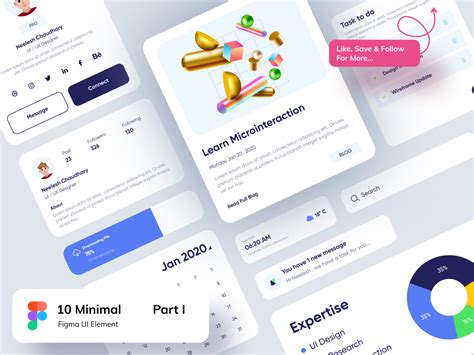
Figma Minimalist Fonts: A Designer's Guide
Figma Minimalist Fonts: A Designer’s Guide
Hey guys! Today, we’re diving deep into the world of minimalist fonts and how you can totally rock them in Figma . You know, those super clean, uncluttered typefaces that just make your designs pop without screaming for attention? That’s what we’re talking about. Minimalist design isn’t just a trend; it’s a philosophy, and fonts are its backbone. Choosing the right font can literally make or break your user interface (UI) or user experience (UX) design. It’s all about readability, aesthetic appeal, and conveying the right message with subtlety. In this guide, we’ll explore why minimalist fonts are so darn effective, how to pick the perfect ones for your next Figma project, and give you some awesome recommendations to get you started. We’ll cover everything from the classics to some hidden gems that will elevate your design game. So grab your favorite beverage, settle in, and let’s get these minimalist vibes flowing!
Why Minimalist Fonts Rule in Figma
Alright, let’s get real for a second. Why are minimalist fonts such a big deal, especially when you’re crafting amazing things in Figma ? It’s simple, really. In a world cluttered with information and visual noise, minimalism offers a breath of fresh air. It’s about stripping away the unnecessary to reveal the essential. When applied to typography, this means focusing on clarity, legibility, and a clean aesthetic. Minimalist fonts are typically characterized by their simple forms, balanced proportions, and lack of overly decorative elements. Think clean lines, open counters, and straightforward letterforms. These qualities make them incredibly versatile and user-friendly. For starters, readability is paramount in UI/UX design. Users need to be able to scan text quickly and easily, whether they’re reading a paragraph, a button label, or a heading. Minimalist fonts excel here because their unadorned nature minimizes visual distractions, allowing the content to shine. This is crucial in Figma , where you’re often designing interfaces that need to be intuitive and accessible. Furthermore, minimalist fonts lend an air of sophistication and modernity to your designs. They convey a sense of professionalism and attention to detail, which can significantly boost the perceived value of your brand or product. They play well with ample white space, another cornerstone of minimalist design, creating a balanced and harmonious visual hierarchy. Imagine a sleek app interface or a clean, professional website – the typography is often the silent hero, guiding the user’s eye and enhancing their overall experience. Figma itself, with its focus on clean design and collaborative workflows, is the perfect playground for exploring the power of minimalist typography. The tool allows you to easily experiment with different font pairings and weights, ensuring your chosen minimalist fonts look absolutely stunning in your mockups. So, in a nutshell, minimalist fonts are your secret weapon for creating designs that are not only beautiful but also highly functional and impactful. They help you communicate your message clearly and effectively, all while looking effortlessly stylish. It’s a win-win, guys!
Choosing the Perfect Minimalist Font for Your Figma Project
So, you’re convinced that minimalist fonts are the way to go for your next Figma masterpiece. Awesome! But now comes the slightly tricky part: actually picking the right one. It’s not just about grabbing the first clean-looking font you see. We need to think strategically. First off, consider the purpose and tone of your design. Are you building a super-modern tech startup’s website? Or maybe a chic, minimalist fashion blog? Or perhaps a functional app for productivity? The font you choose should align with the overall message you’re trying to convey. A serious, professional project might call for a more structured sans-serif, while a creative endeavor might allow for something with a touch more personality, still within the minimalist spectrum, of course. Readability is king, remember? This is non-negotiable, especially for body text. Test your chosen font at various sizes in Figma . Can you easily read paragraphs at 16px? How about small captions at 12px? Look for fonts with clear letterforms, good x-height (the height of lowercase letters like ‘x’), and adequate spacing between letters (kerning) and lines (leading). OpenType features like ligatures can sometimes enhance readability, but keep it simple for true minimalism. Font pairing is another crucial element. Rarely will you use just one font. You’ll likely need a headline font and a body text font. The key is to create contrast while maintaining harmony. A common and effective strategy is to pair a serif font with a sans-serif font. For a minimalist aesthetic, you might choose a clean, geometric sans-serif for headings and a highly legible serif with simple details for body copy, or vice-versa. Alternatively, you can use different weights or styles of the same font family. For instance, a bold weight for headlines and a regular weight for body text can create a sophisticated, cohesive look. Figma makes this super easy; you can quickly preview different pairings right within your design file. Don’t forget about character set and language support . If your project needs to support multiple languages or includes special characters, symbols, or numerals, ensure your chosen font has them. It’s a bummer to realize your perfect font doesn’t have that one crucial character you need! Lastly, licensing . Always, always check the font license. Is it free for commercial use? Are there any restrictions? Google Fonts is a fantastic resource for freely available, high-quality fonts that are perfect for minimalist designs. So, take your time, experiment in Figma , and trust your gut. The perfect minimalist font is out there waiting to make your design sing!
Top Minimalist Fonts for Your Figma Toolkit
Alright, you guys ready for some awesome font recommendations ? Finding the perfect minimalist font can feel like searching for a needle in a haystack, but don’t worry, I’ve got your back! These picks are tried-and-true, super versatile, and work like a charm in Figma . Let’s get to it!
Sans-Serif Superstars
When we talk minimalist fonts , sans-serifs are usually the first ones that come to mind, and for good reason. They’re clean, modern, and incredibly legible. Here are some absolute must-haves for your Figma toolkit:
• Inter: Seriously, if you’re not using Inter yet, what are you doing? Designed specifically for user interfaces, it’s incredibly versatile, highly readable at all sizes, and has a massive range of weights. It feels modern, friendly, and super professional. It’s like the Swiss Army knife of UI fonts. You’ll find yourself reaching for it constantly in Figma for everything from UI elements to body copy.
• Roboto: Another powerhouse from Google Fonts. Roboto is designed to be a workhorse. It balances geometric forms with friendly, open curves, making it extremely readable and pleasant to use. It’s got that clean, neutral vibe that works for almost any project. Its extensive weight options make it easy to create a strong typographic hierarchy in Figma .
• Open Sans: A perennial favorite for a reason. Open Sans is a humanist sans-serif, meaning it has a slightly more organic and less rigid feel than purely geometric sans-serifs. It’s optimized for web and mobile interfaces, ensuring excellent legibility. Its warmth makes it a great choice when you want a minimalist feel that’s still approachable and inviting.
• Montserrat: Inspired by the old posters and signs in the traditional Montserrat neighborhood of Buenos Aires, this font has a geometric construction with a strong character. It feels very contemporary and stylish, perfect for headings and short bursts of text in Figma . It comes in a wide range of weights, offering flexibility.
• Work Sans: This one is great if you need a font that performs well at both display and text sizes. Work Sans is a more neutral sans-serif that feels contemporary and works well in various contexts. It has a slightly wider stance than some other geometric sans-serifs, which can contribute to its readability.
Elegant Serif Companions
Don’t discount serif fonts for your minimalist designs, guys! When chosen carefully, they can add a touch of elegance, warmth, and sophistication that sans-serifs might miss. They’re perfect for creating a more classic or editorial feel in your Figma projects.
• Merriweather: This is a fantastic serif font designed for comfortable reading on screens. It has a slightly condensed, yet tall x-height, giving it a good balance of space efficiency and readability. Its serifs are subtle, keeping it feeling clean and modern enough for minimalist applications. Use it for body text in Figma to add a touch of class.
• Lora: Lora is a well-balanced contemporary serif with roots in calligraphy. It has beautiful curves and a robust structure, making it highly readable. It feels elegant and artistic, perfect for adding a touch of personality to minimalist designs without being overwhelming. Great for headings or even longer text passages.
Ultimately, mastering minimalist fonts in Figma is about making conscious choices. It’s about understanding that every curve, every line, every space contributes to the overall message and usability of your design. So, go forth, experiment, and use these principles to create stunning, user-friendly interfaces. Minimalist typography is more than just a style; it’s a superpower for effective communication in the digital space. Keep practicing, keep designing, and let those clean, beautiful fonts do the talking!